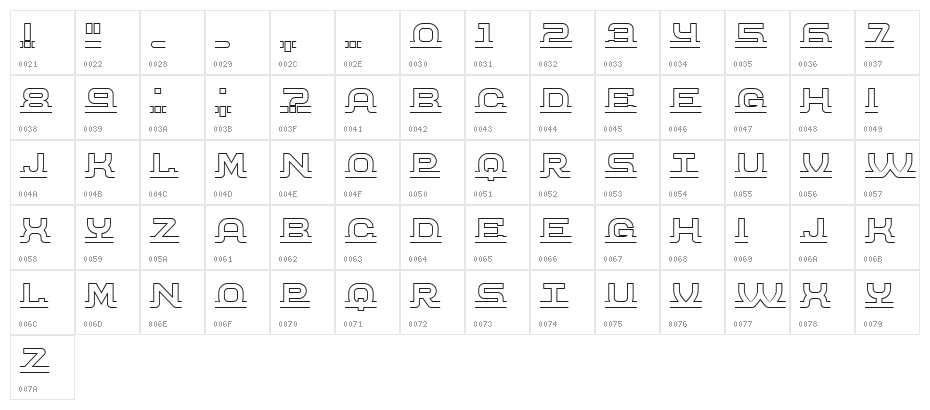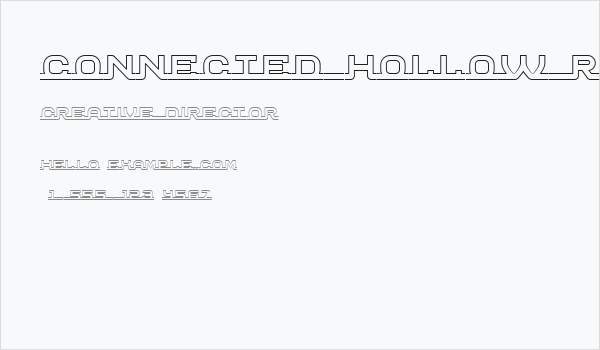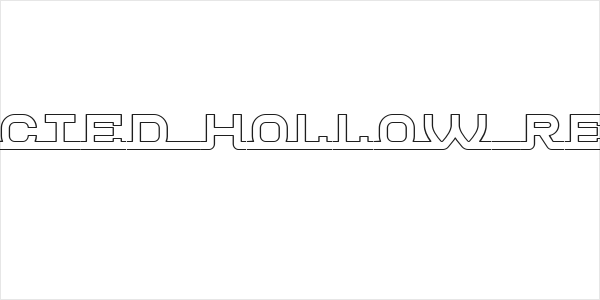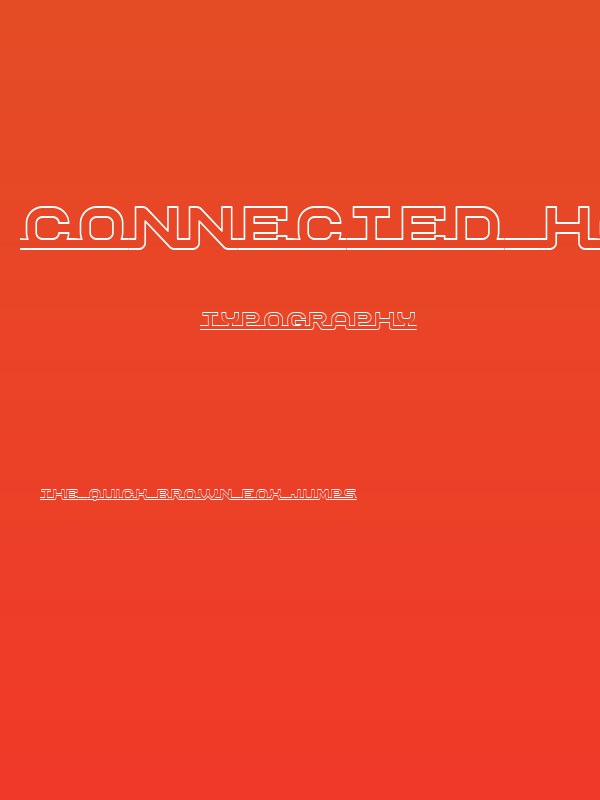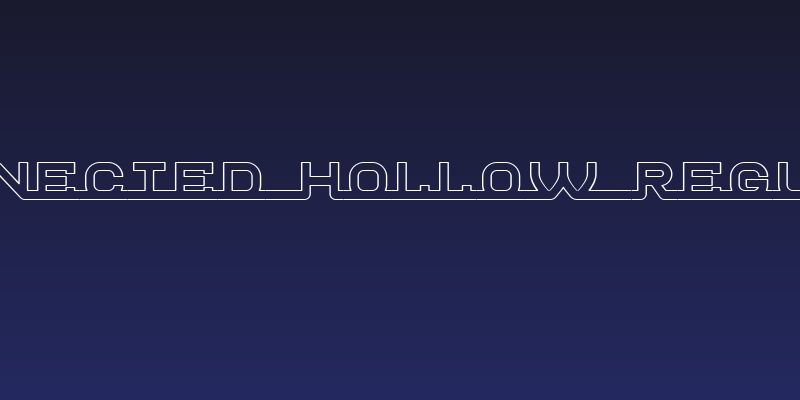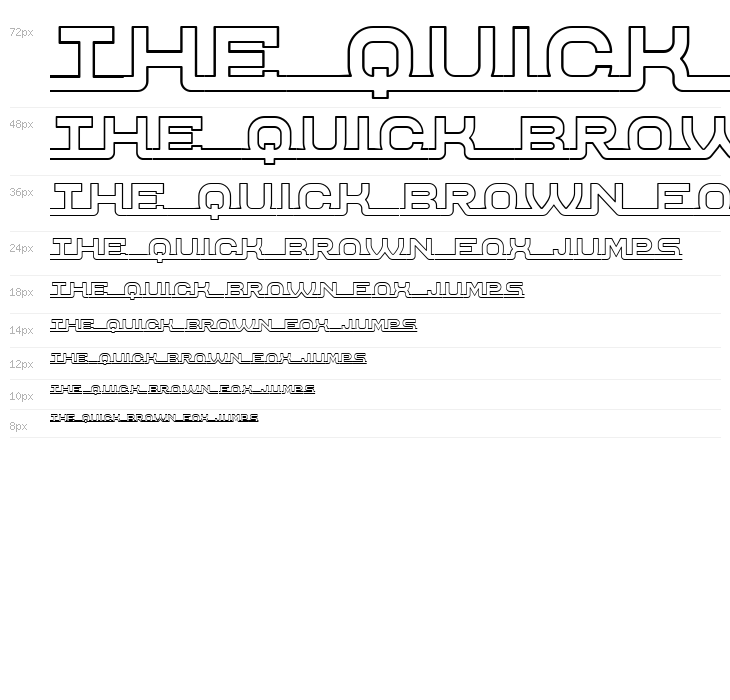
Connected Hollow Regular Font
Connected Hollow Regular Description
This font features a unique, connected hollow design where each character is outlined with a consistent stroke width, creating a modern and futuristic appearance. The uppercase and lowercase letters maintain a uniform height, contributing to a cohesive look. The geometric shapes and straight lines give it a structured feel, while the hollow aspect adds a sense of lightness and openness. The numerals and special characters follow the same design principles, ensuring a harmonious overall style. This font's distinctiveness makes it stand out, ideal for creative and bold applications.
| Proposed Projects | Ideal for futuristic branding, tech-related projects, modern posters, and digital media. |